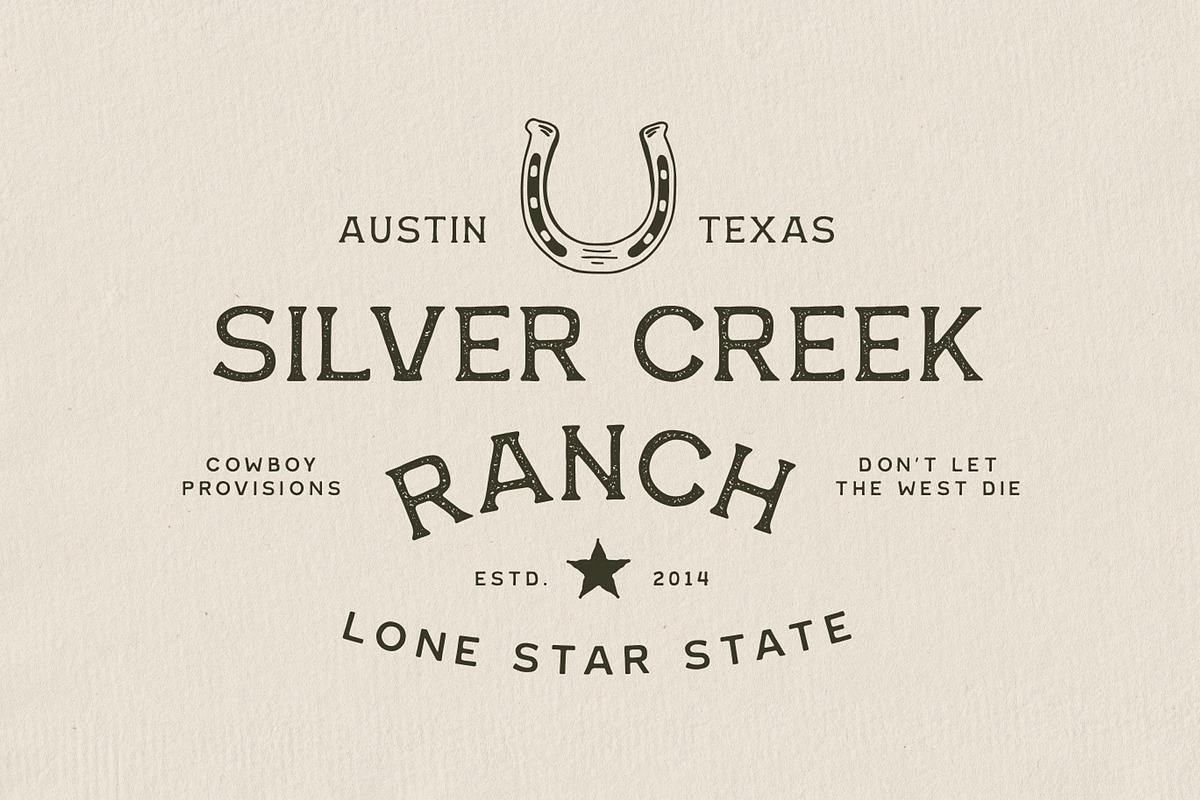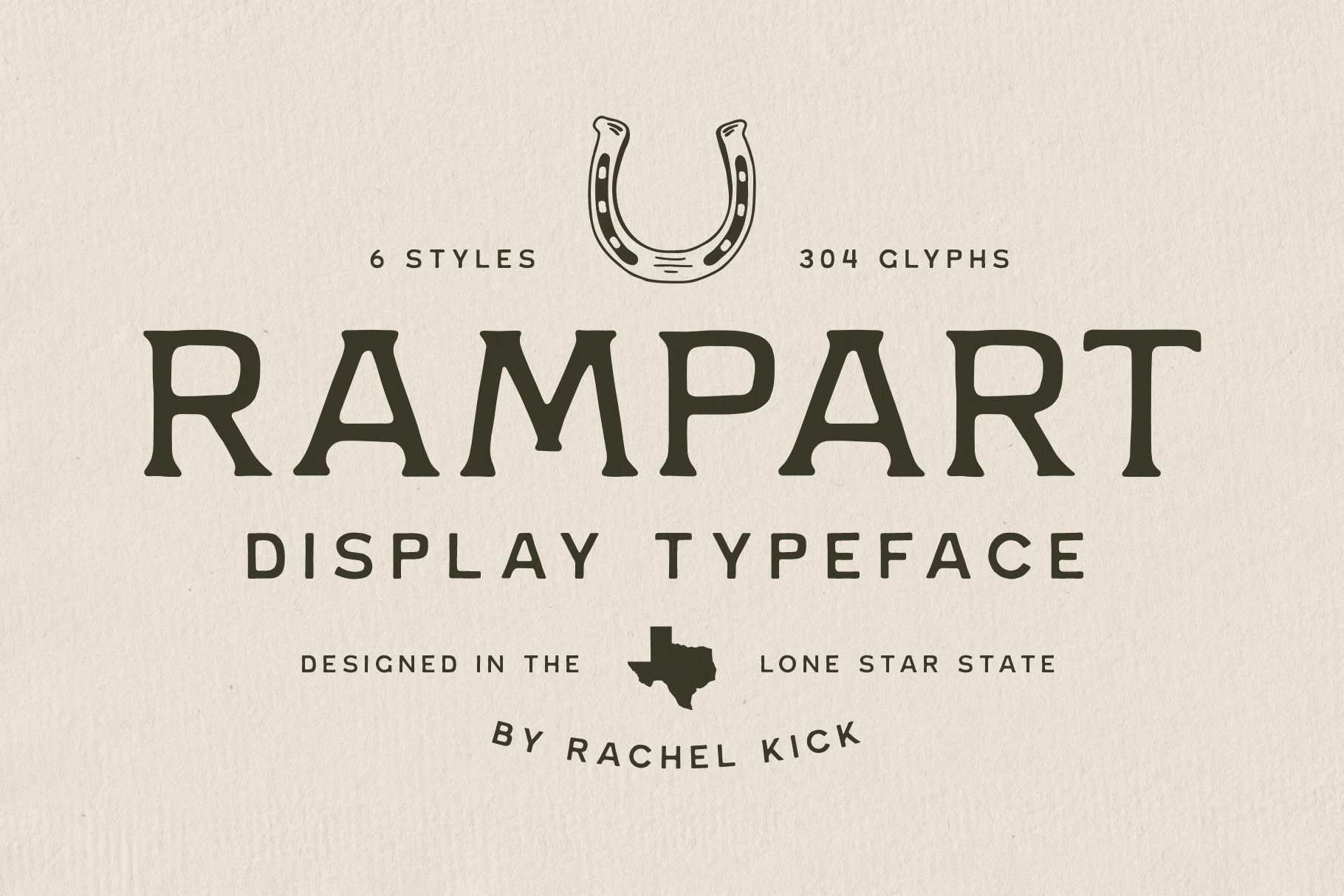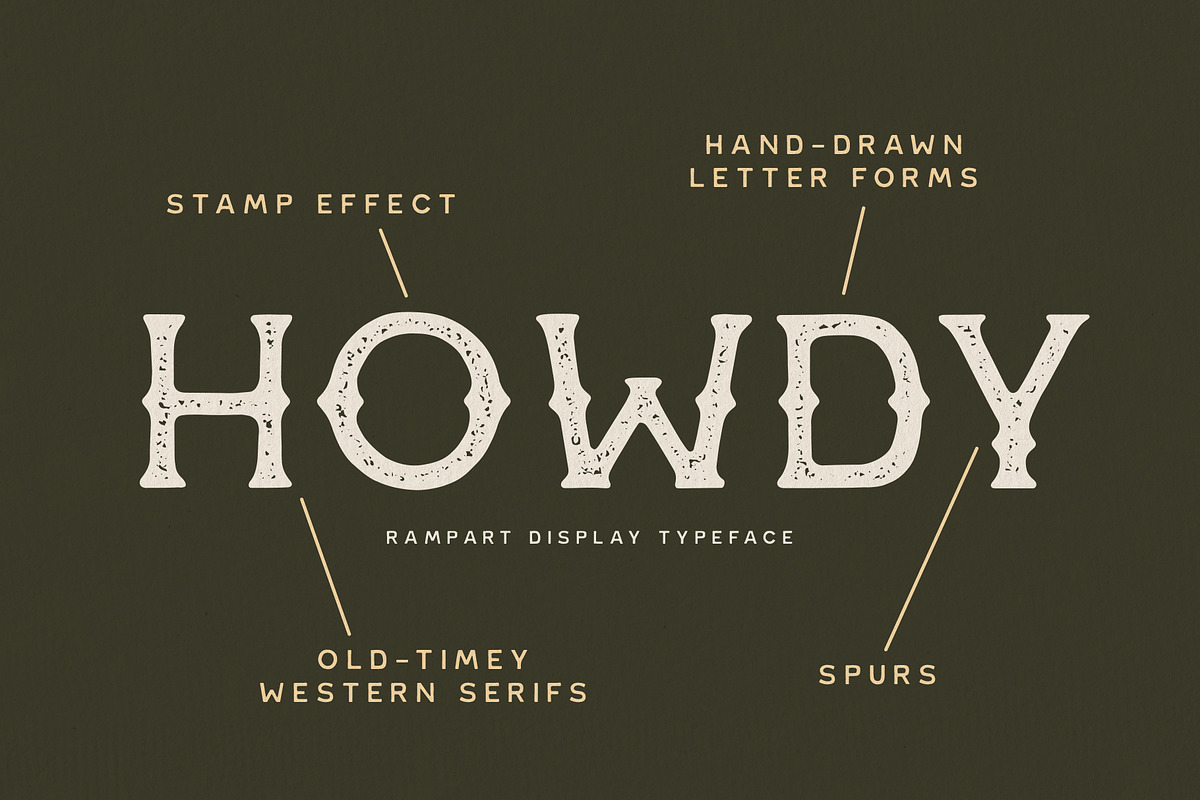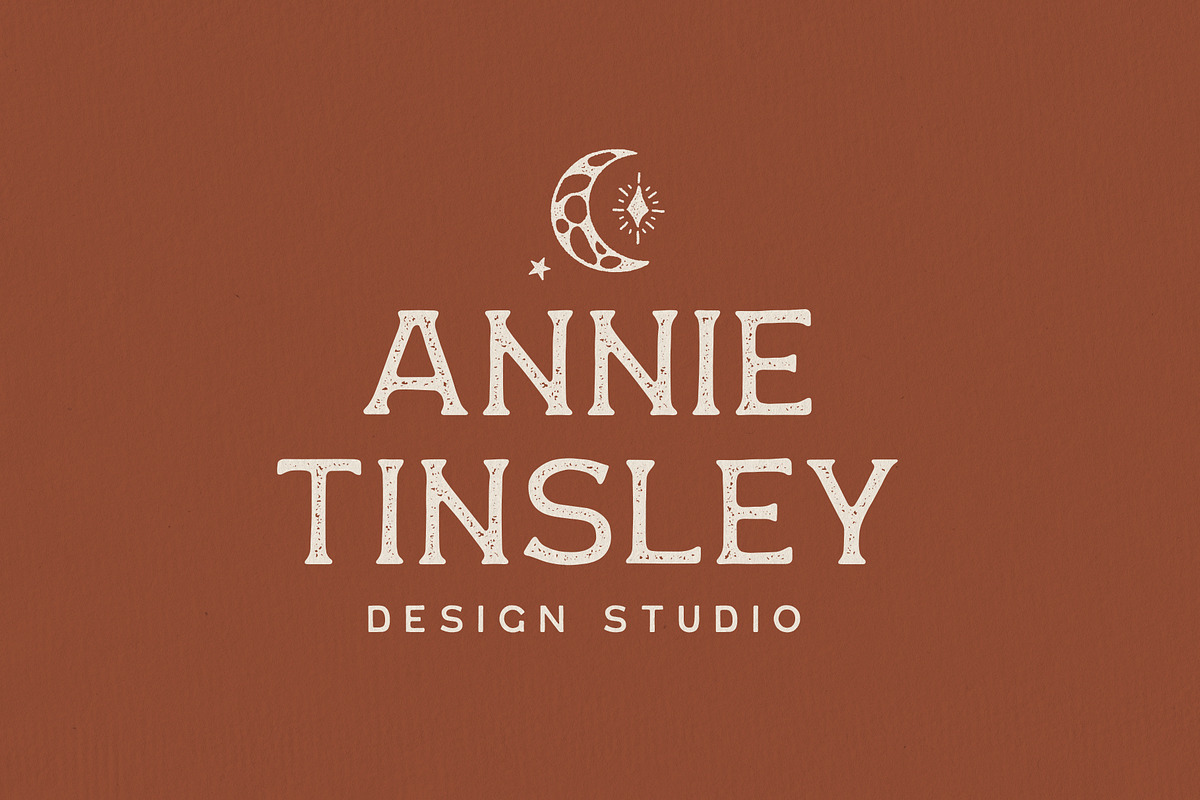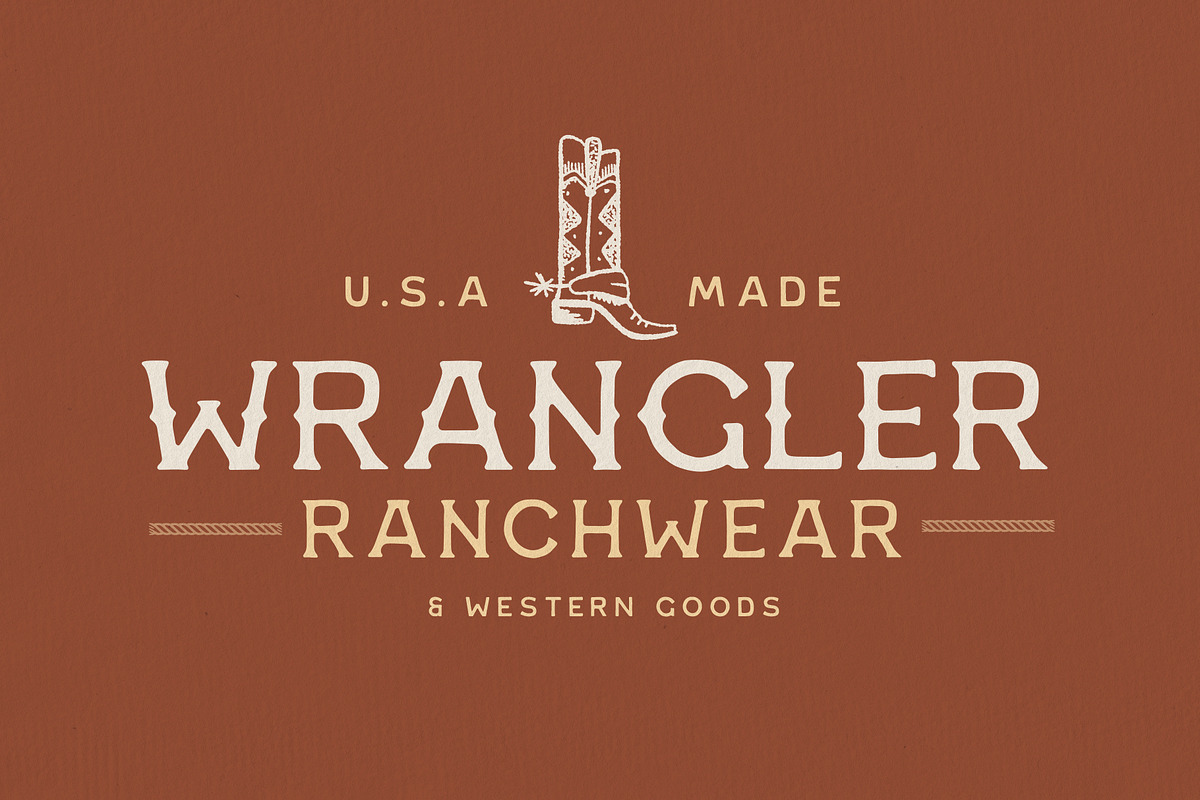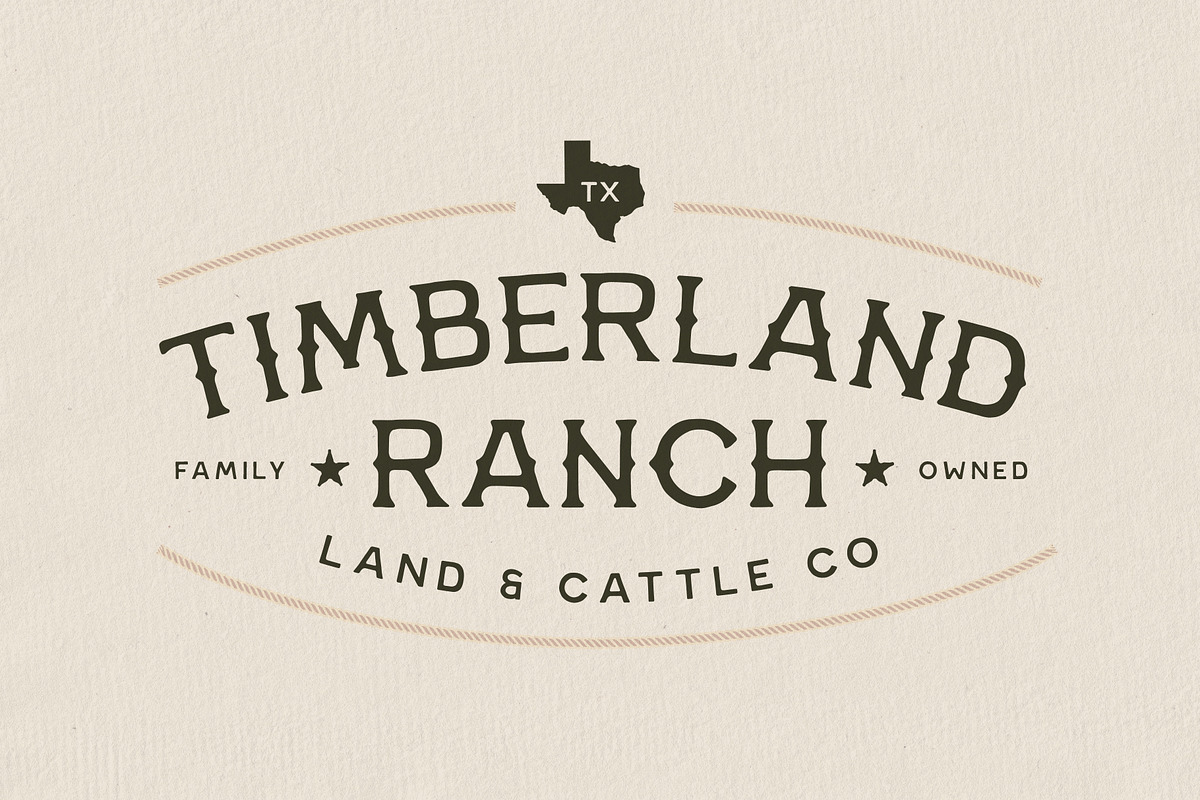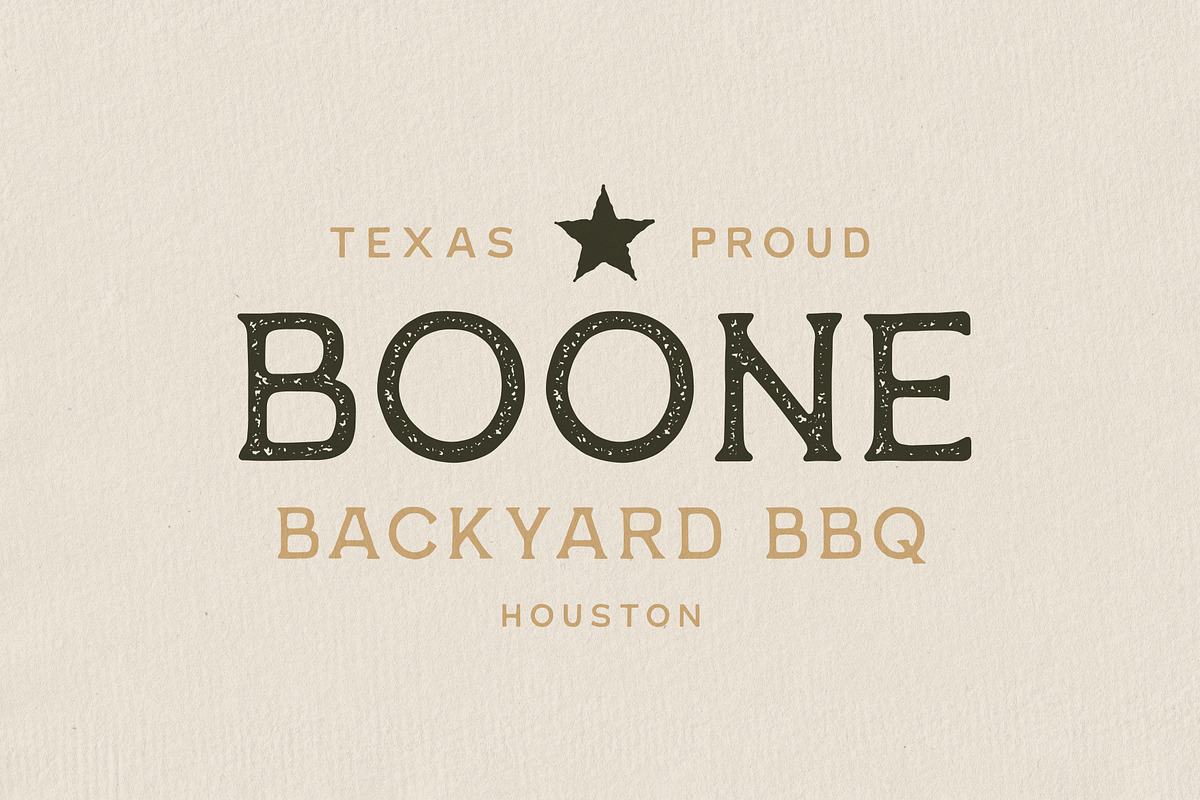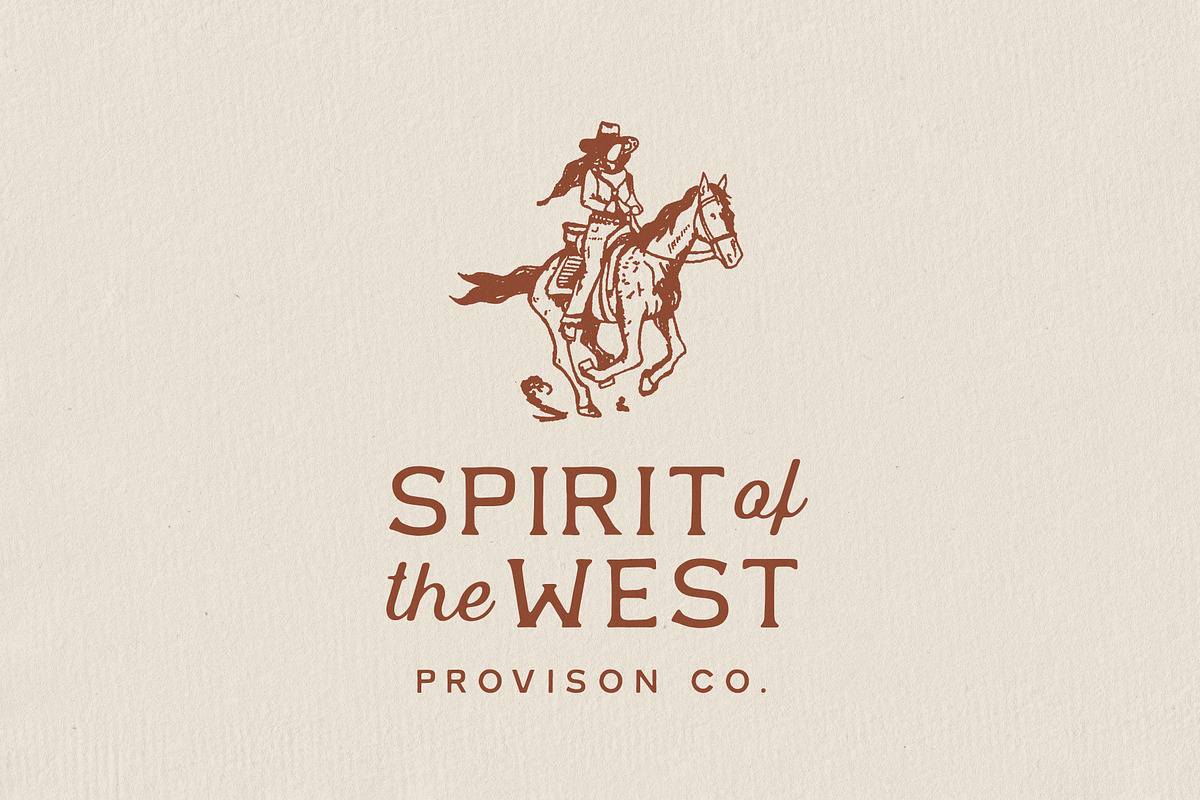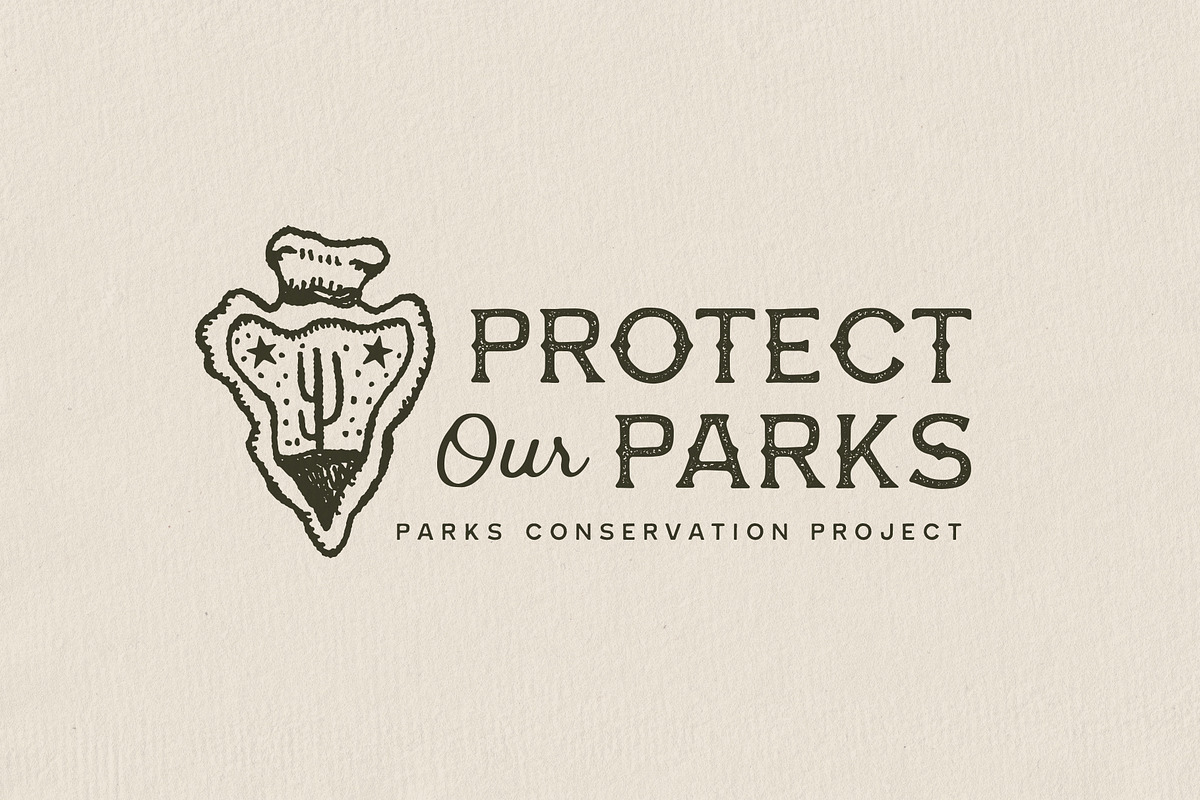
Rampart Display Typeface
Introducing Rampart - A Hand-Drawn Western Typeface
Step into the Wild West and capture the essence of the frontier spirit with this hand-drawn Western font. Inspired by the timeless allure of the Old West, this typeface brings to life the rugged charm and adventurous spirit of the American frontier.
- Genuine Western Aesthetic: Old-timey serifs echo the weathered wood signs that once adorned saloons, trading posts, and sheriff's offices.
- 6 Font Styles: This font's versatility knows no bounds. Whether you're crafting posters for a Western-themed event, designing a vintage-inspired logo, or infusing your website with a hint of frontier nostalgia, Rampart's many different styles can meet your needs. Includes 4 serif and 2 sans-serif fonts for endless pairing options.
- Character and Authenticity: Each character in Rampart is drawn by hand. The irregularities in the letterforms give it a distinct personality, as if it were crafted by the skilled hand of a frontier artisan.
- Global Language Support: Rampart accommodates over 250 languages, making it accessible for diverse audiences and projects.